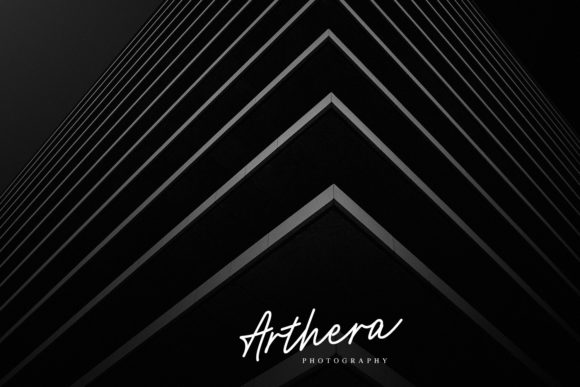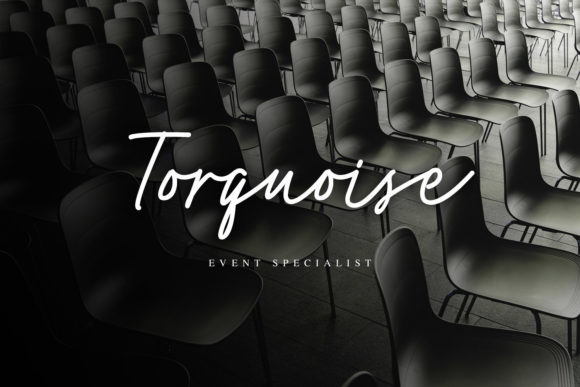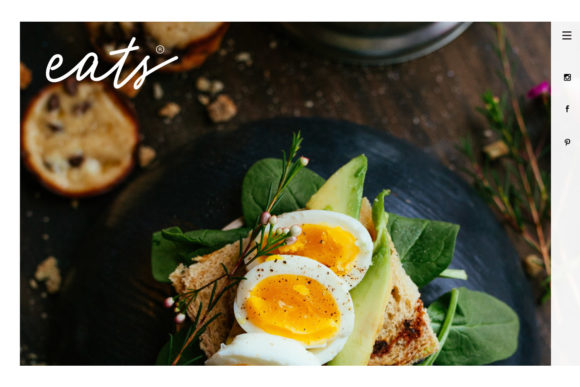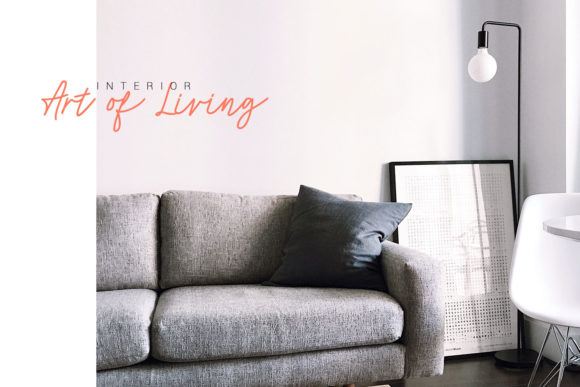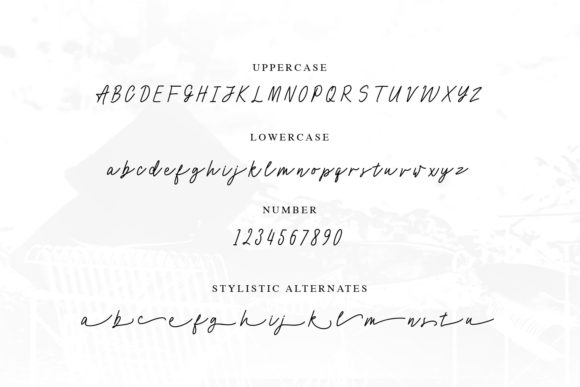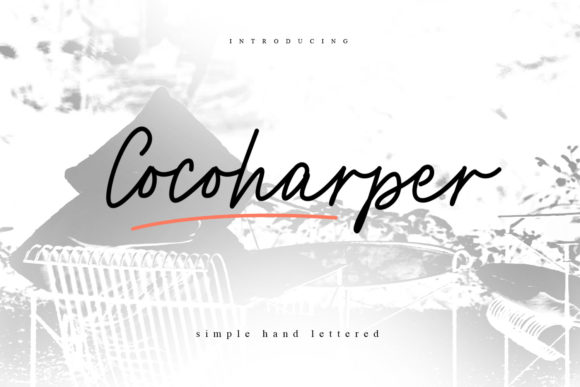
Cocoharper Font: The Sweet and Simple Script for Authentic Designs
Are you a designer or crafter looking for a font that can add a touch of authenticity to your design ideas? Look no further than the Cocoharper Font! This sweet and simple script is perfect for a variety of design projects, from branding and packaging to stationery and crafts. In this article, we’ll take a closer look at the Cocoharper Font, its features, and how you can use it to elevate your designs.
What is Cocoharper Font?
Cocoharper is a beautiful script font that is designed to bring a sense of warmth and personality to your designs. With its smooth, flowing lines and rounded edges, this font is perfect for creating a vintage or handmade look. The Cocoharper Font is a versatile script that can be used for a wide range of design projects, from logos and branding to invitations and crafts.
Key Features of Cocoharper Font
So, what makes the Cocoharper Font so special? Here are some of its key features:
- Sweet and Simple Design: The Cocoharper Font has a sweet and simple design that is easy to read and looks great in a variety of sizes.
- Authentic Vibe: This font has a unique, handmade feel that will add an authentic vibe to any design idea.
- Versatile: The Cocoharper Font can be used for a wide range of design projects, from logos and branding to invitations and crafts.
- Easily Readable: The font is designed to be easily readable, making it perfect for body text and headings.
How to Use Cocoharper Font in Your Designs
Now that we’ve covered the features of the Cocoharper Font, let’s talk about how you can use it in your designs. Here are a few ideas to get you started:
- Branding and Packaging: Use the Cocoharper Font to create a unique and memorable brand identity. It’s perfect for labels, packaging, and business cards.
- Stationery and Invitations: Add a touch of elegance to your stationery and invitations with the Cocoharper Font. It’s perfect for wedding invitations, thank-you cards, and more.
- Crafts and DIY Projects: The Cocoharper Font is perfect for crafters and DIY enthusiasts. Use it to add a personal touch to your projects, such as scrapbooking, journaling, and more.
Tips for Pairing Cocoharper Font with Other Fonts
When it comes to pairing the Cocoharper Font with other fonts, there are a few things to keep in mind. Here are some tips to help you create a beautiful font combination:
- Pair with Sans-Serif Fonts: Pair the Cocoharper Font with sans-serif fonts, such as Arial or Helvetica, to create a nice contrast between the script and sans-serif fonts.
- Use with Bold Fonts: Pair the Cocoharper Font with bold fonts, such as bold sans-serif fonts, to create a nice contrast between the light and bold fonts.
- Experiment with Font Sizes: Experiment with different font sizes to create visual interest and hierarchy in your designs.
In conclusion, the Cocoharper Font is a beautiful and versatile script that can add a touch of authenticity to any design idea. With its sweet and simple design, easily readable letters, and authentic vibe, this font is perfect for a wide range of design projects. Whether you’re a designer, crafter, or DIY enthusiast, the Cocoharper Font is a great addition to your font collection.